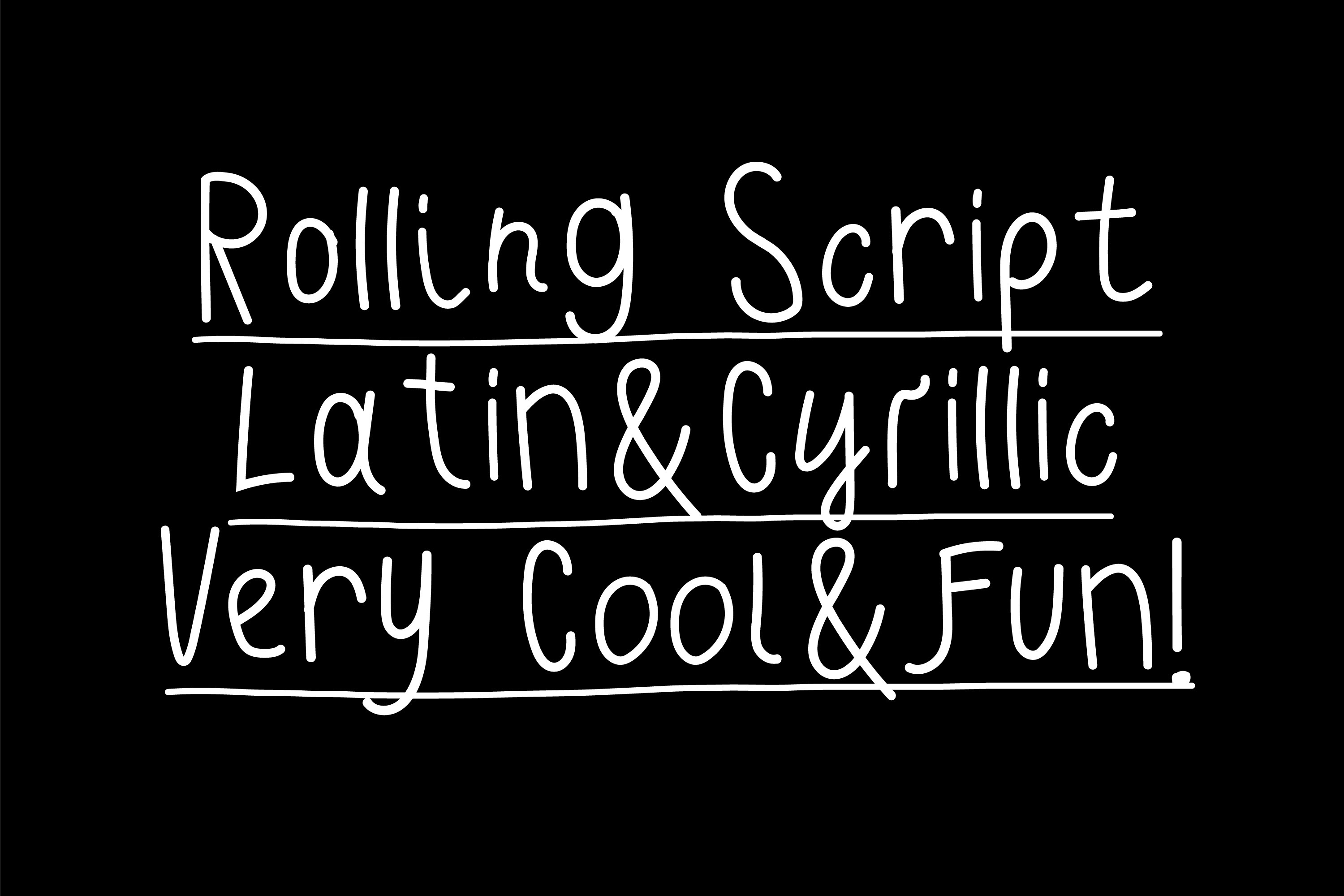
Rolling Script
Rolling Script is a cheerful and playful hand-written typeface with childish crafted vibes.
- Latin letters (English, Western and Central Europe)
- Cyrillic
- Numerals, symbols & punctuation
- 3 Stylistic sets for each letter both Latin & Cyrillic